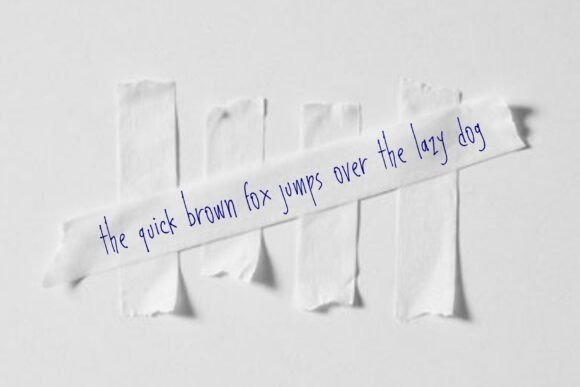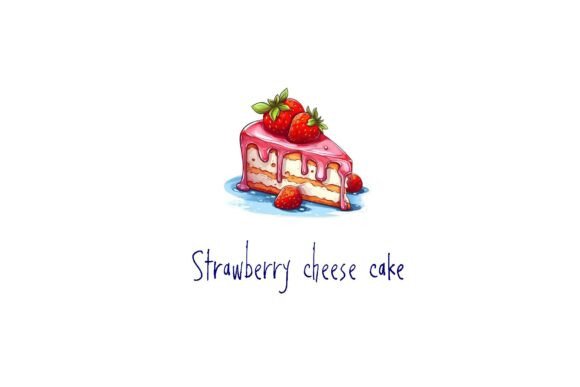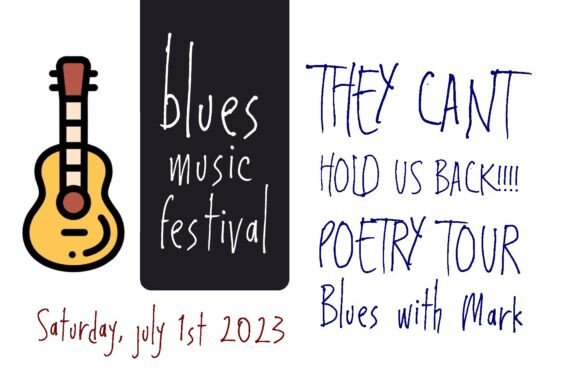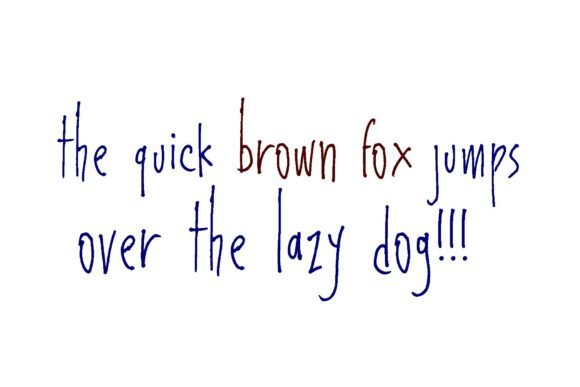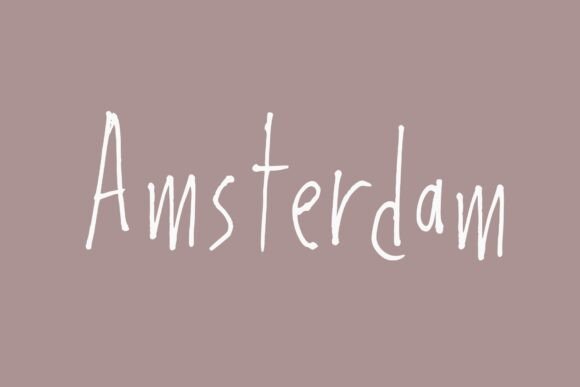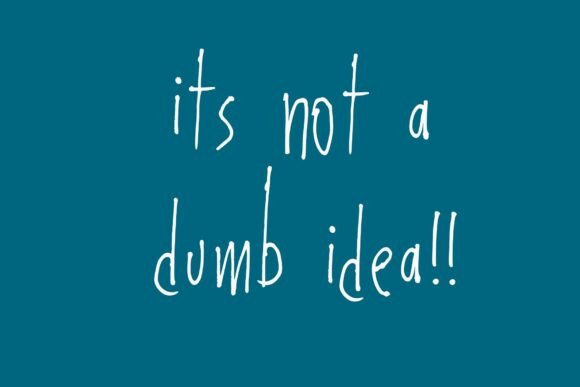
Introduction to Martil Font
Experience the organic appeal of Martil, a unique marker font that mirrors authentic, freehand handwriting.
This easy-to-use typeface carries an engaging, creative and spirited vibe Its distinct styling recreates the wacky and whimsical charm of casual, hand-drawn penmanship.
Key Features of Martil Font